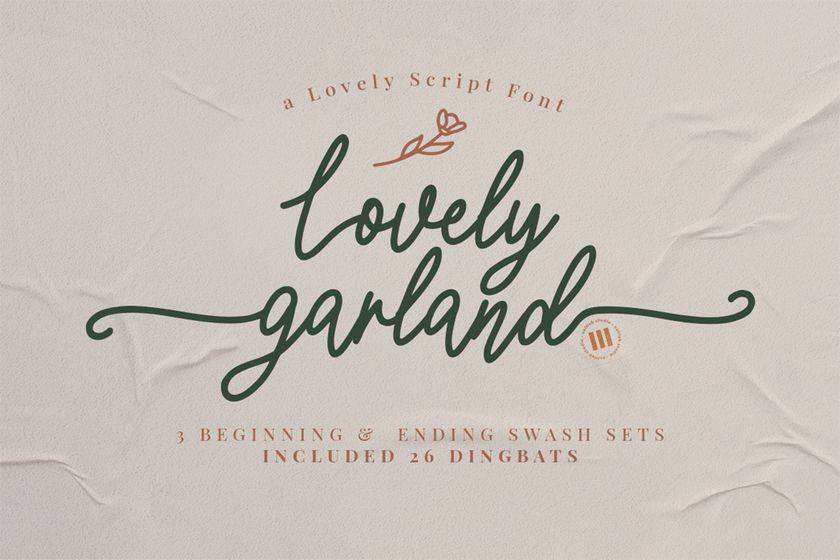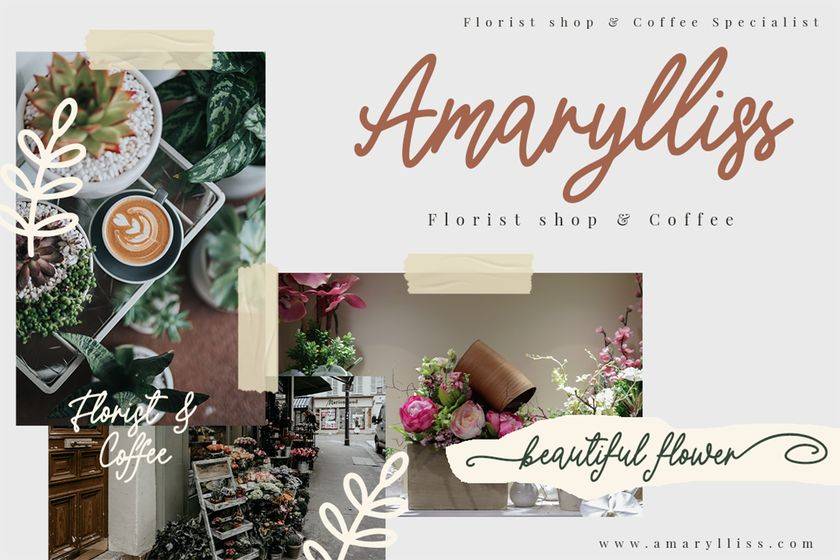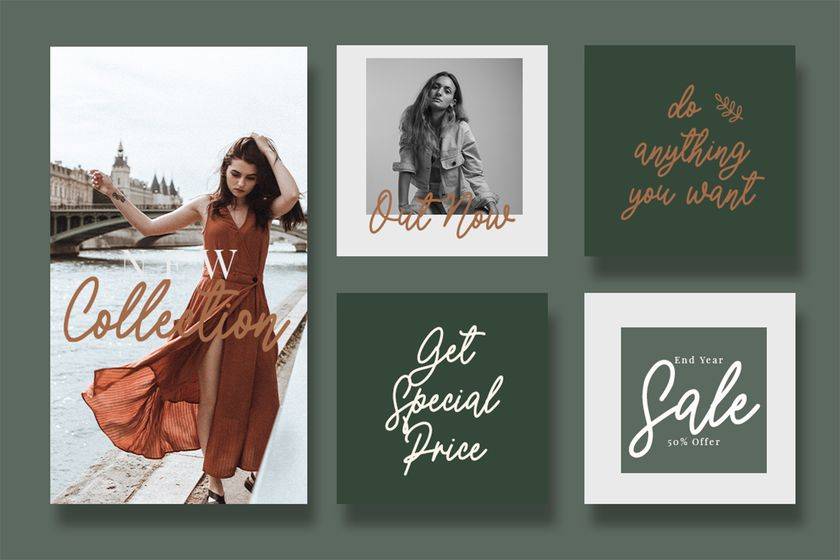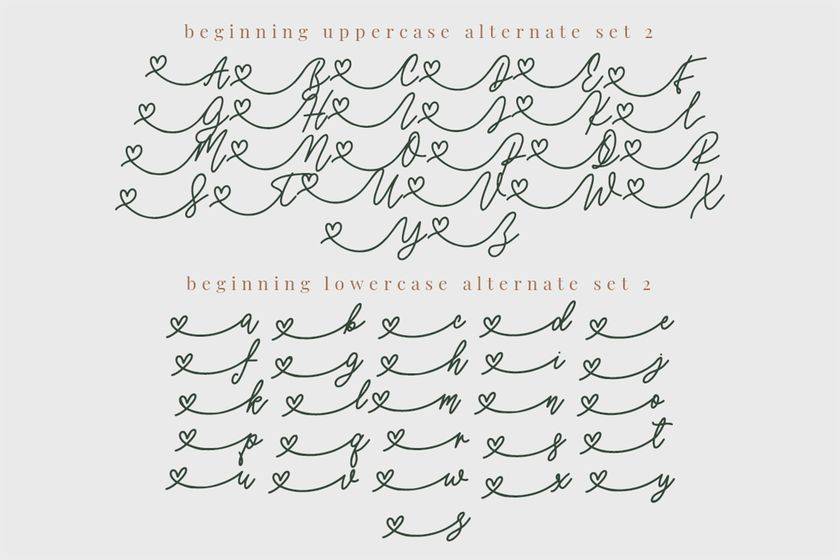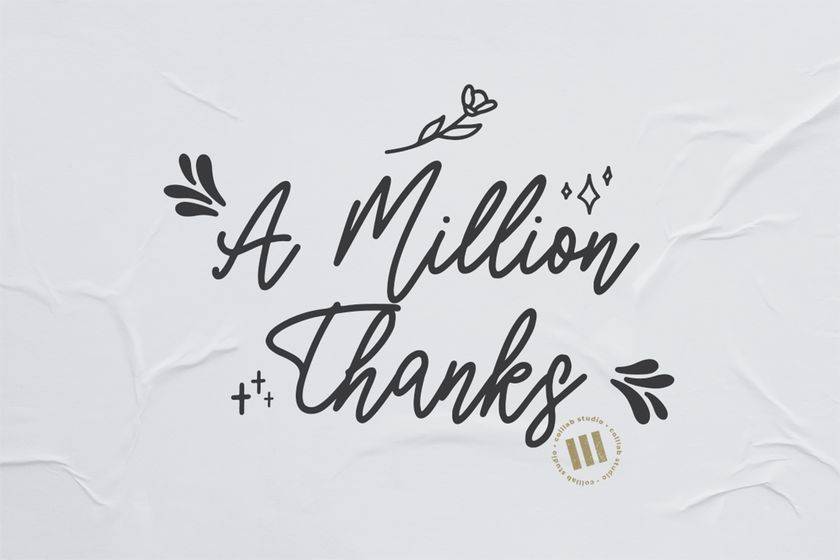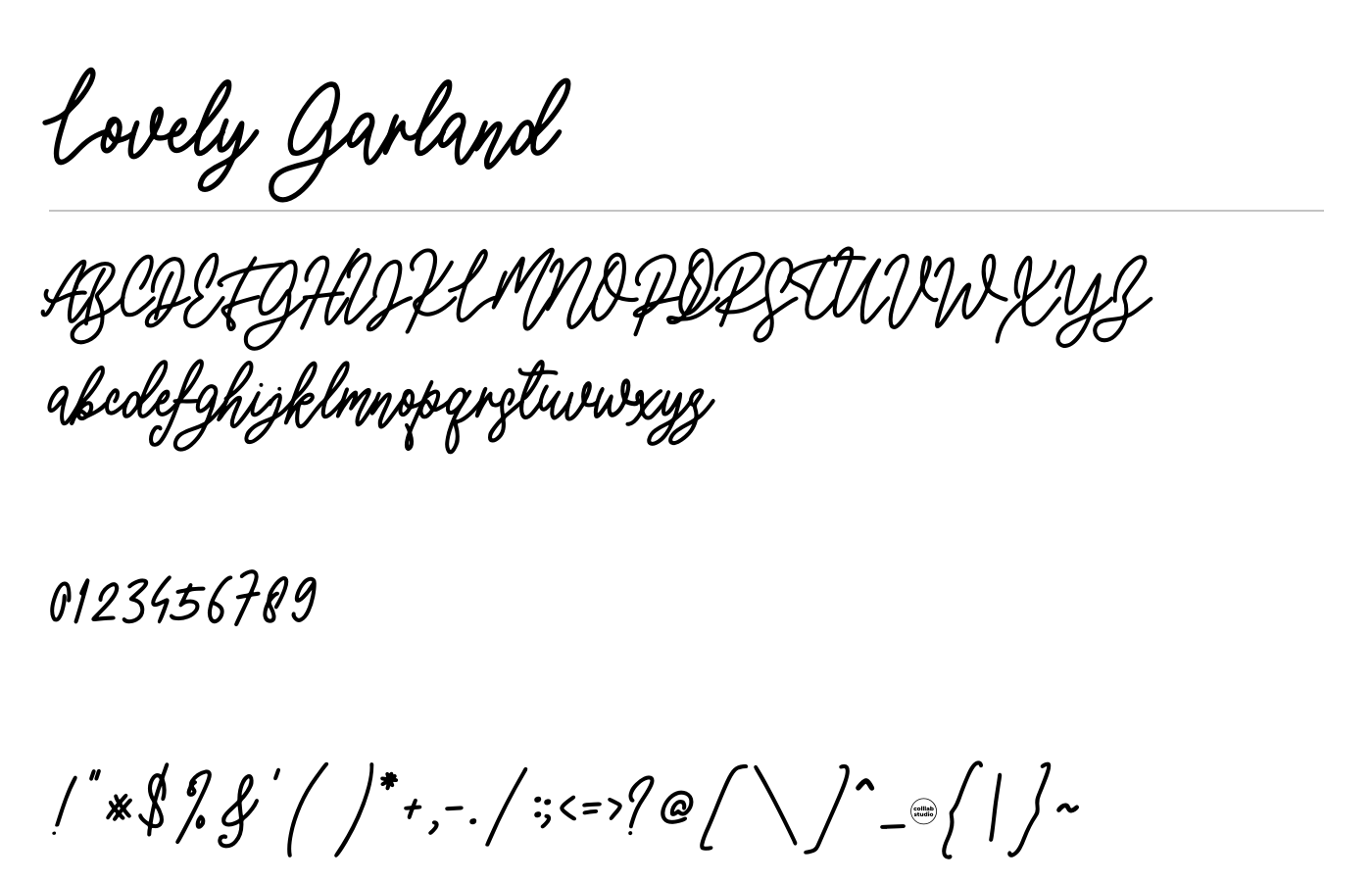
Lovely Garland is a delicate and elegant script font featuring fluid, connected letterforms with a natural handwritten style. Its slender weight and smooth strokes create a graceful, airy feel, making it perfect for feminine branding, invitations, and lifestyle projects that seek a charming, personal touch. This font works wonderfully in headlines or decorative text where a warm, approachable elegance is desired.
Lovely Garland Font
About Lovely Garland Font